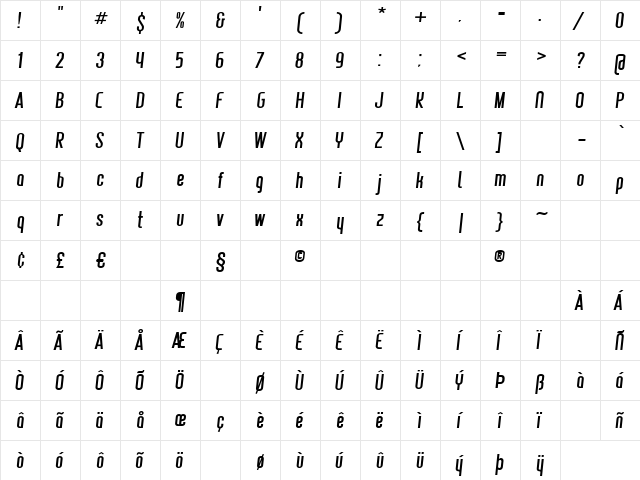
MedItalic Regular
Design Context for MedItalic Typeface
MedItalic is a composed and adaptable typeface that performs quietly and consistently across a wide range of design contexts. The slanted form adds forward momentum and visual energy.
Pro Tip: Use MedItalic for emphasis, pull quotes, and subheadings where its slanted energy can add rhythm to the layout.